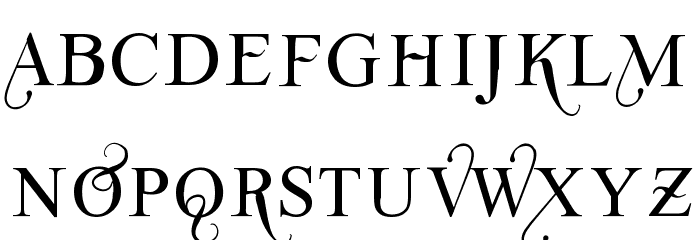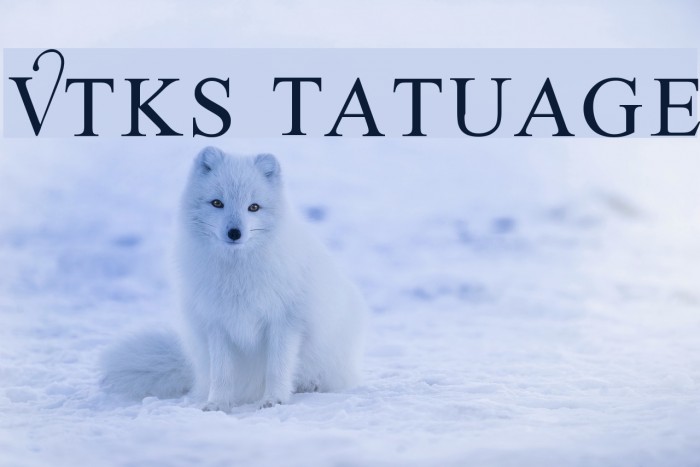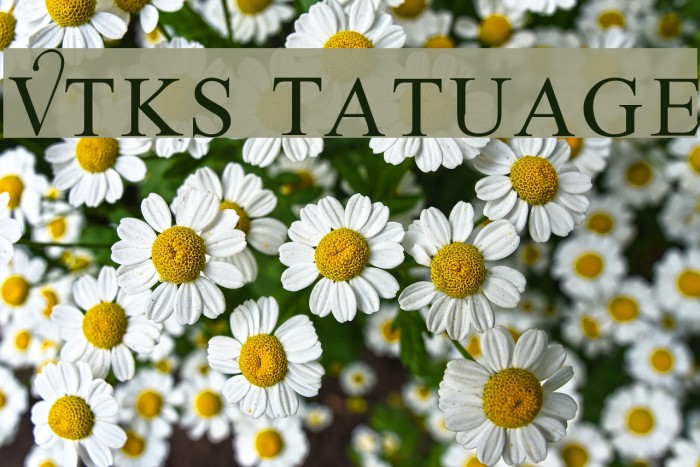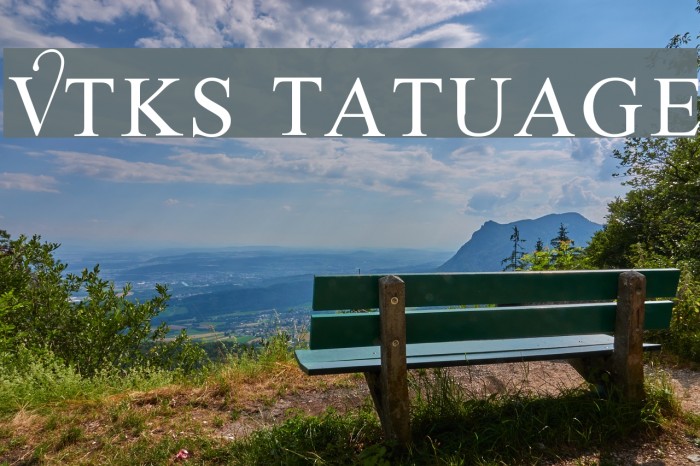
Vtks Tatuage2 Font
This font features an elegant and decorative style with intricate swirls and flourishes that extend from the characters, particularly noticeable in the uppercase letters. The design combines traditional serif elements with artistic embellishments, giving it a unique and sophisticated appearance. The strokes vary in thickness, providing a medium contrast that enhances readability while maintaining an ornate look. The overall style is reminiscent of vintage calligraphy, making it suitable for projects that require a touch of elegance and creativity.
An elegant, decorative font with intricate swirls and medium contrast.
- Proposed Projects: Ideal for wedding invitations, luxury branding, decorative headlines, and artistic posters.
- Overall Style: Vintage
- Use Case: Headlines, Logos, Invitations